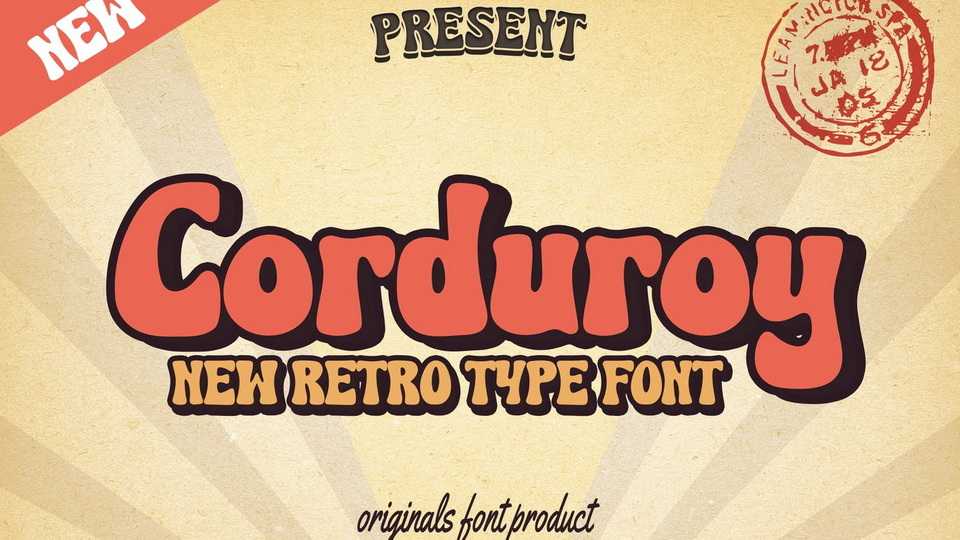
Download Corduroy font, a classic groovy typeface. Imagine that you a re in the dance floor, with bell bottom trouser, that skin tight shirt, large sunglasses, and just grooving through the music. That’s what Corduroy is all about.